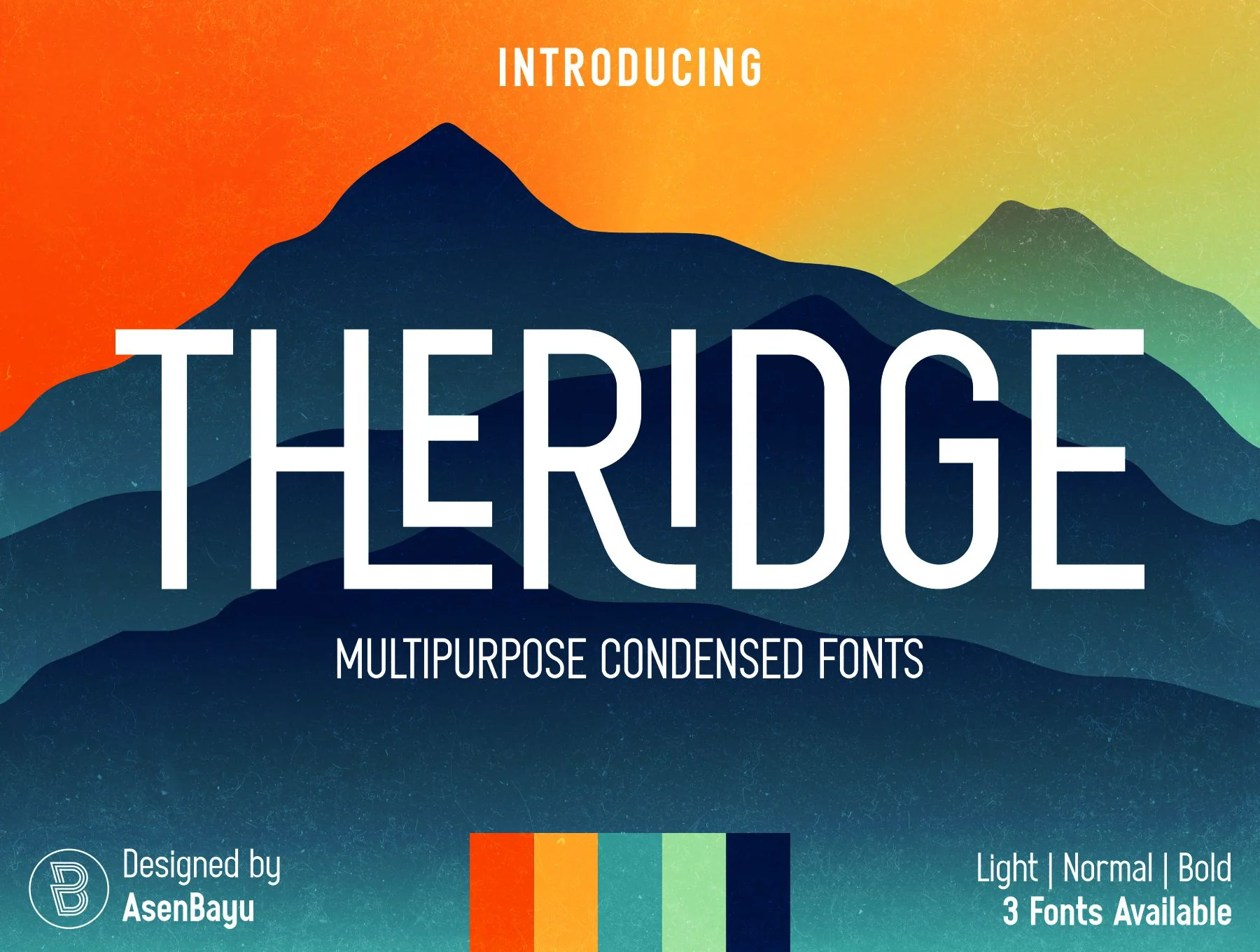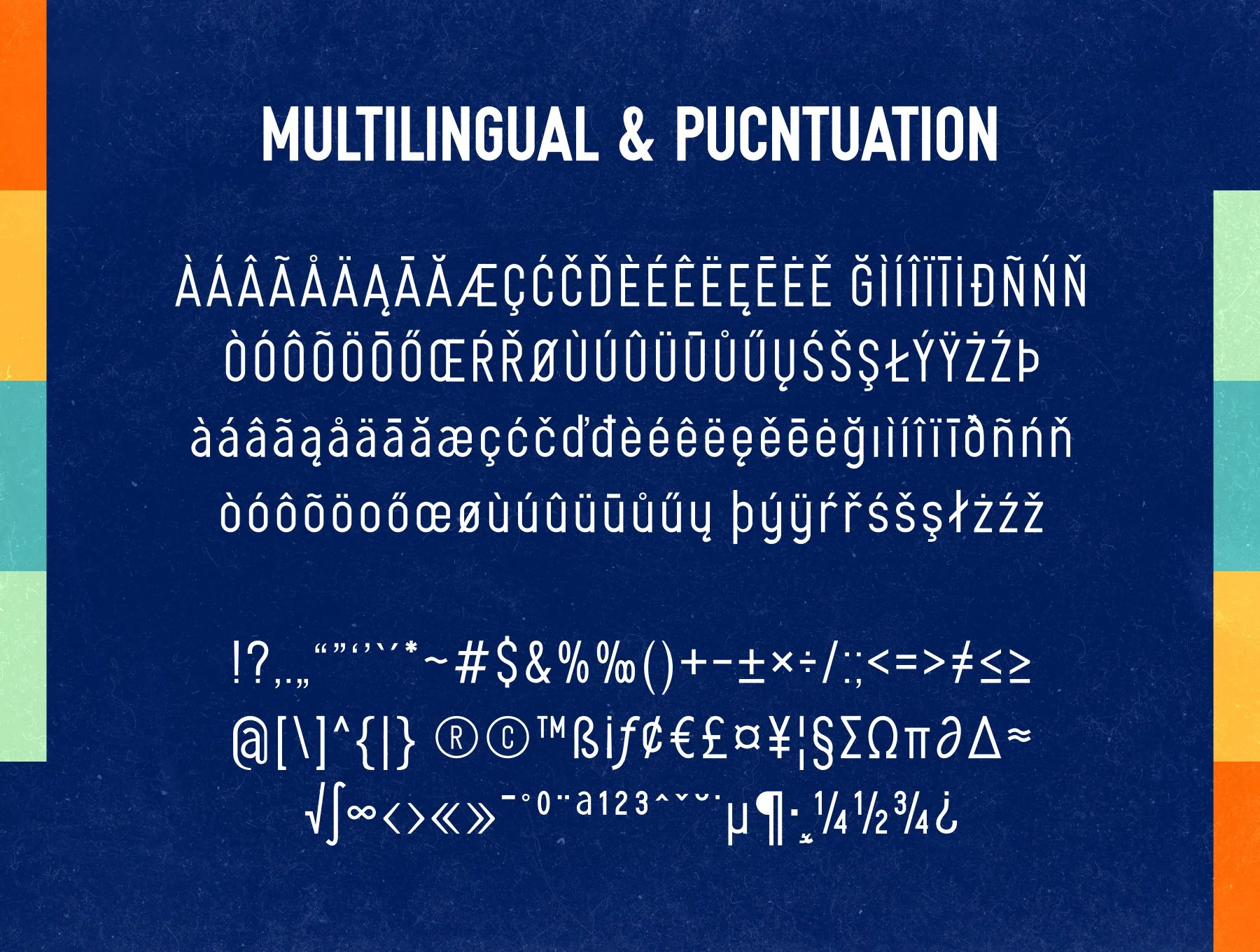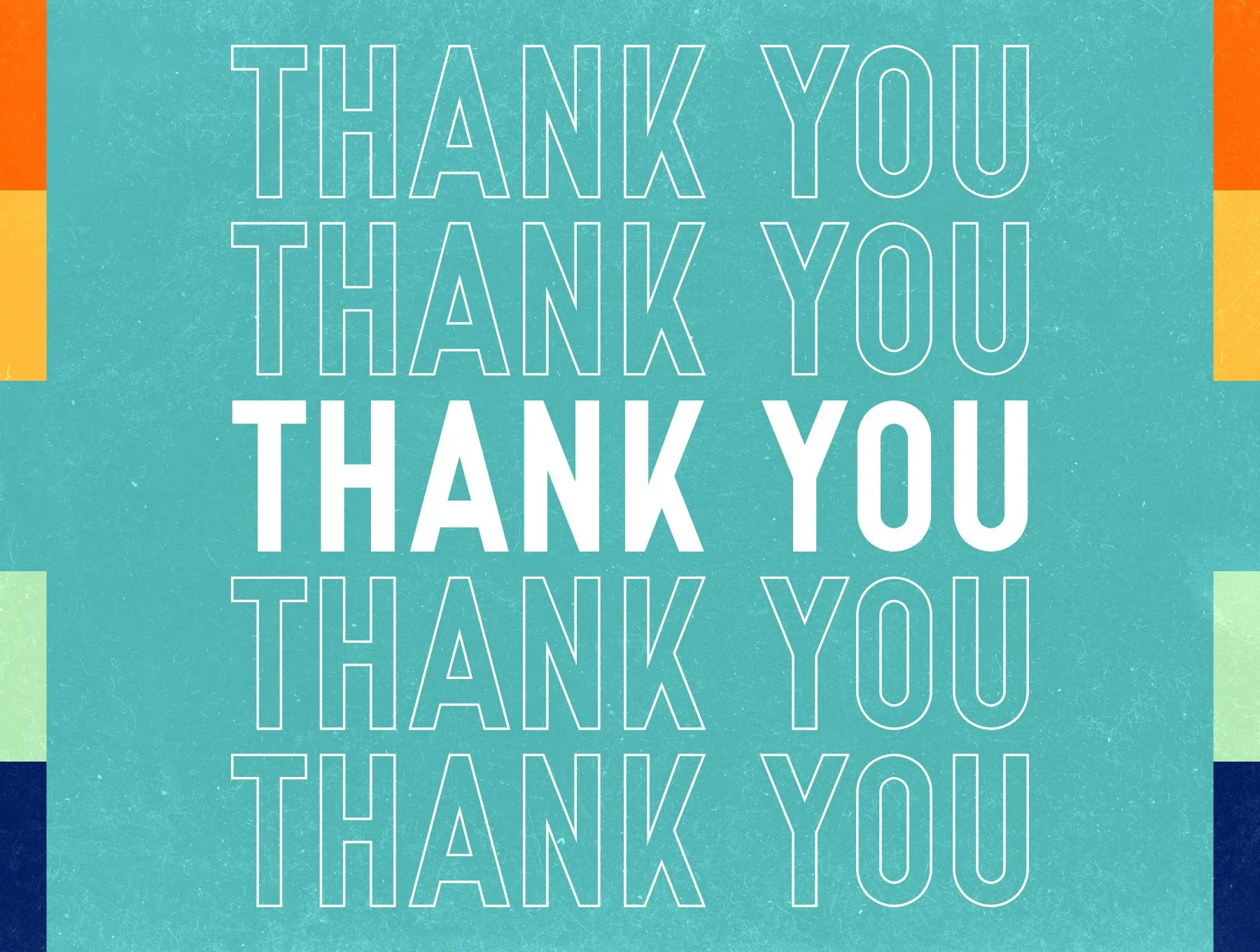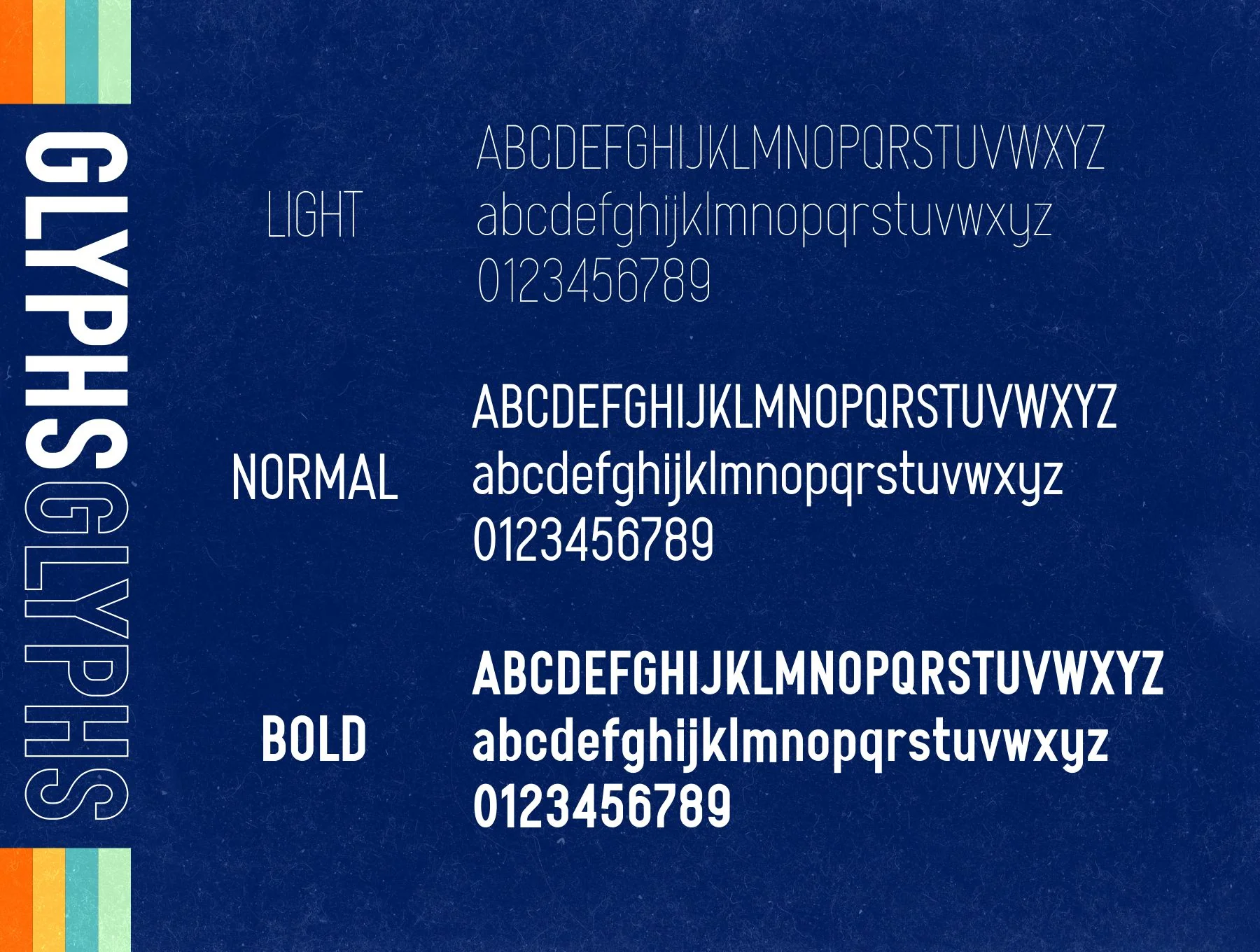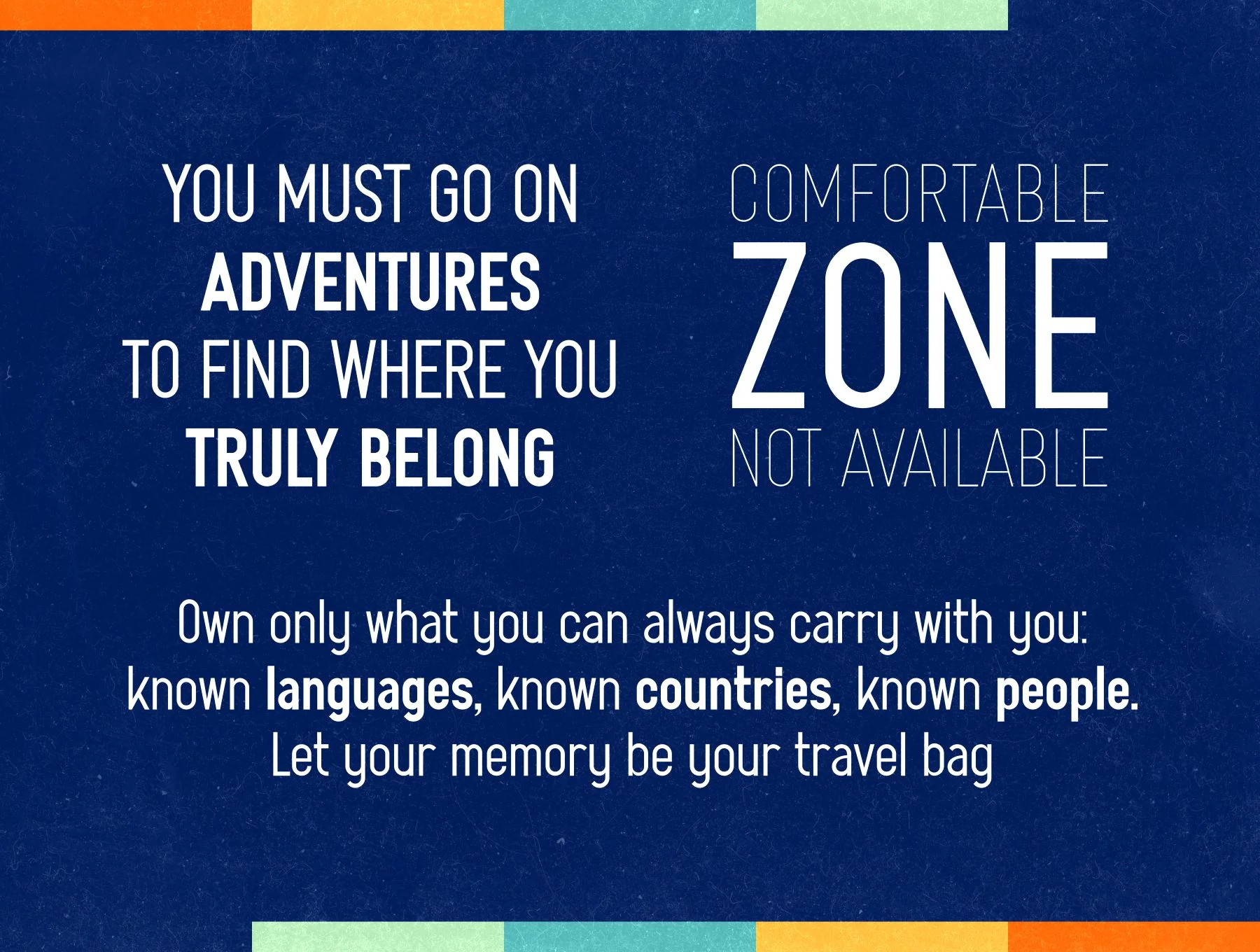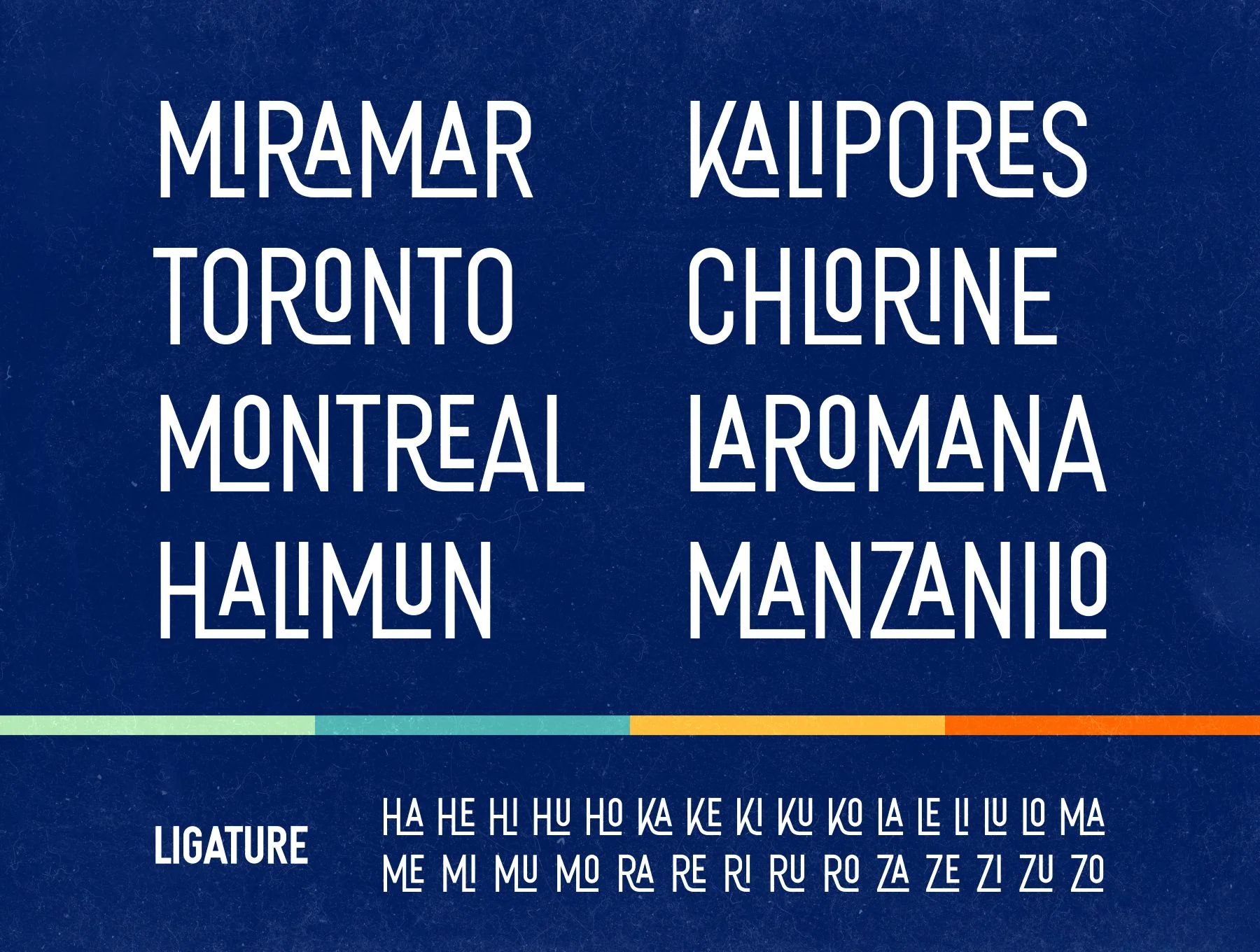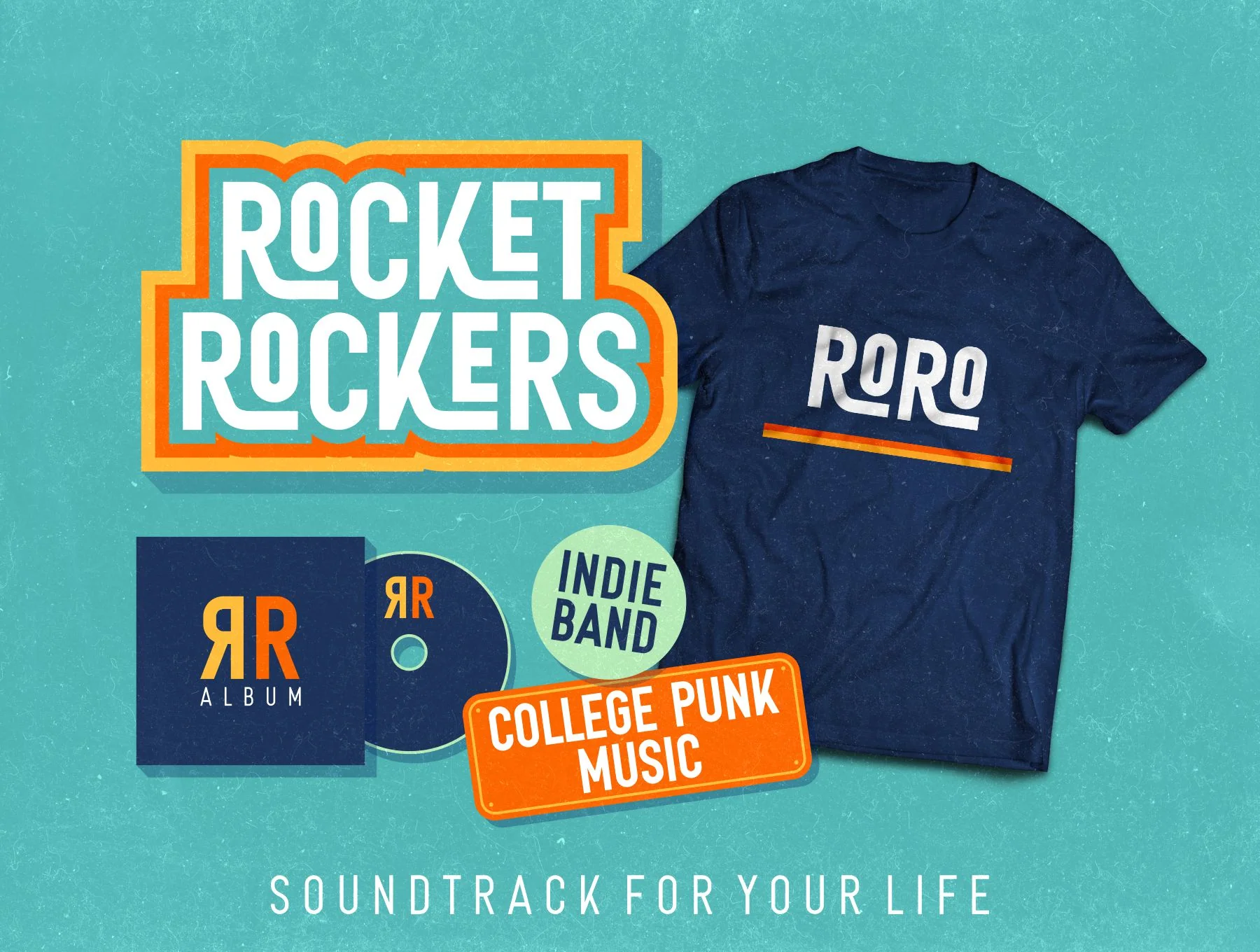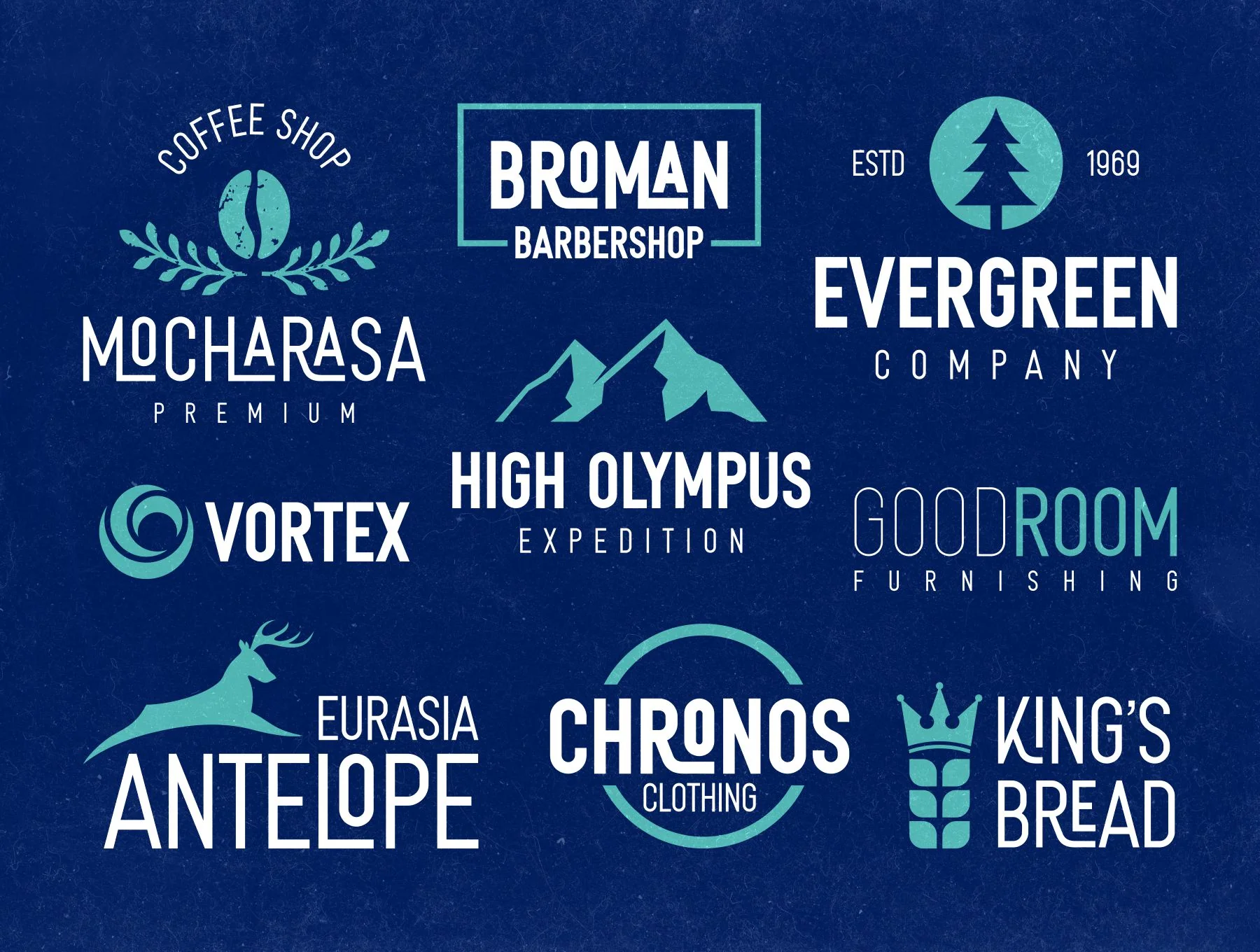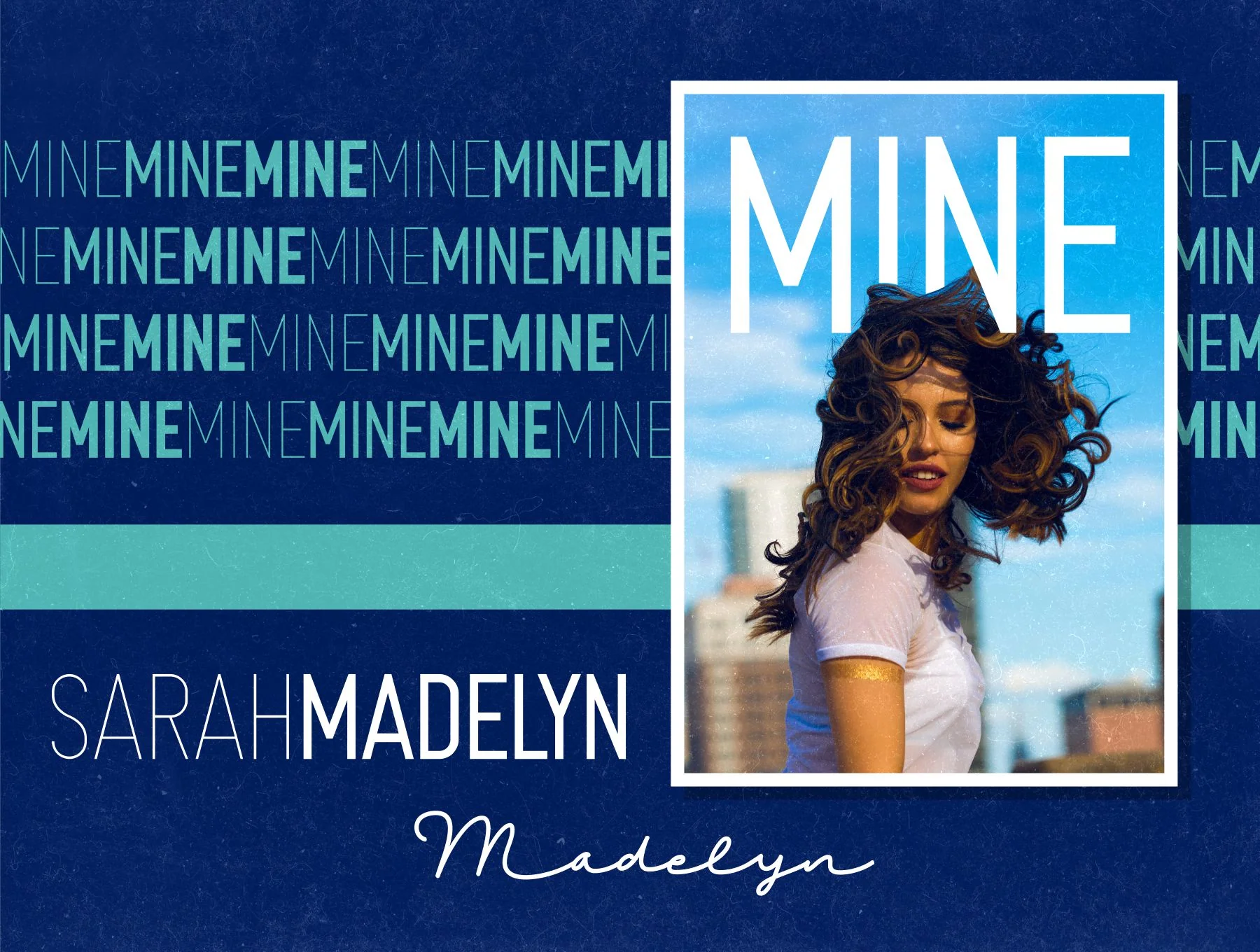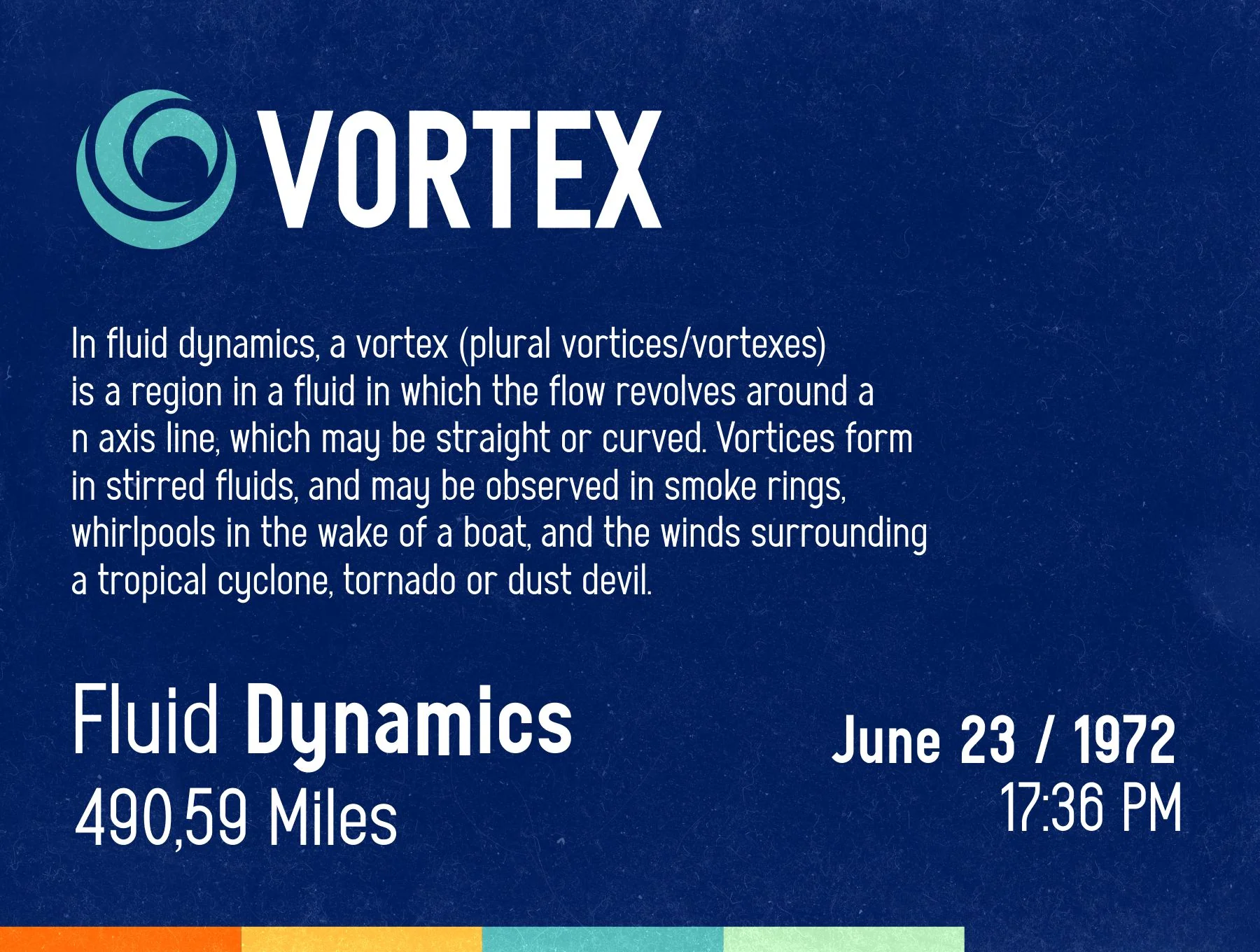
Theridge Fonts Family
Versatile Condensed Font Family with 3 Styles
Three styles
Default glyph
Numbers and punctuation
Decorative ligatures
Theridge is a clean, refined condensed font inspired by hiking journeys and forest landscapes, bringing a crisp highland adventure feel. Its retro, urban, vintage, hipster, and modern style suits logos, posters, headlines, albums, quotes, apparel, and more. It includes OpenType features, kerning, ligatures, three weights, full cases, numerals, punctuation, and multilingual support.